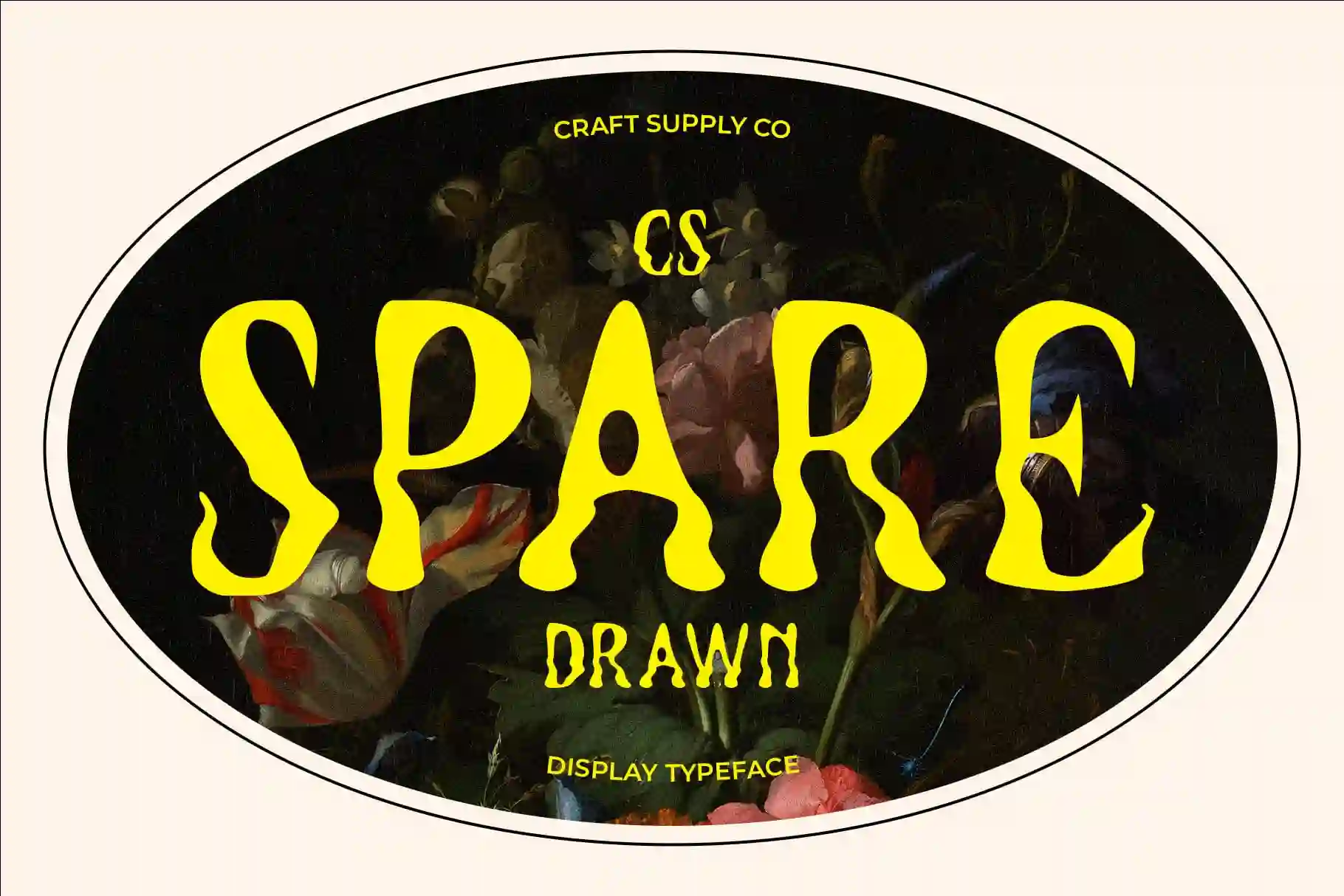
CS Spare Drawn – Psychedelic Display Font with Trippy Energy
Experimental Psychedelic Style
This Font is a display font that thrives on experimentation and imagination. With its trippy aesthetic and psychedelic curves, it transforms ordinary text into a visual experience. Its flowing shapes and unconventional letterforms radiate movement, giving every design a dynamic and expressive look.
Hand-Drawn Character for Playful Expression
The hand-drawn detail gives font an unmistakable personality. Instead of rigid, mechanical precision, the font celebrates imperfections and organic strokes. This handmade quality enhances its playful mood, making it a natural fit for projects that need a creative, artistic, or free-spirited vibe.